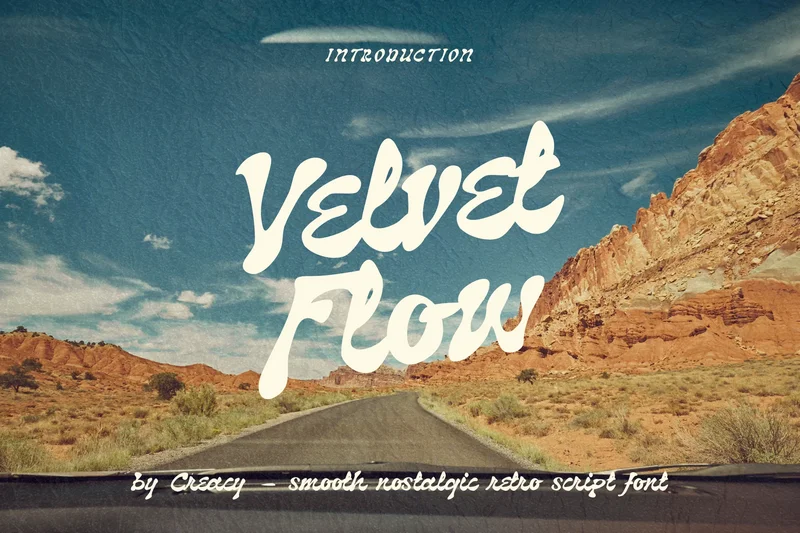
Velvetflow Script – Smooth Nostalgic Retro Font
Velvetflow Script is a smooth and nostalgic retro script typeface that brings back the charm of vintage lettering with a fresh modern twist. Inspired by playful 90s typography, it features bold curves, flowing strokes, and a natural handwritten feel – perfect for designs that want to stand out with character and style.
Great for branding, packaging, posters, coffee shop logos, album covers, and retro-themed merchandise. Comes in both Clean and Textured styles to suit any creative mood.
Uppercase & lowercase letters
Numbers, punctuation & symbols
Clean & Textured versions
Perfect for: Vintage logos, cafe menus, event posters, throwback branding, merchandise, packaging, and anything that needs a touch of timeless retro flair.